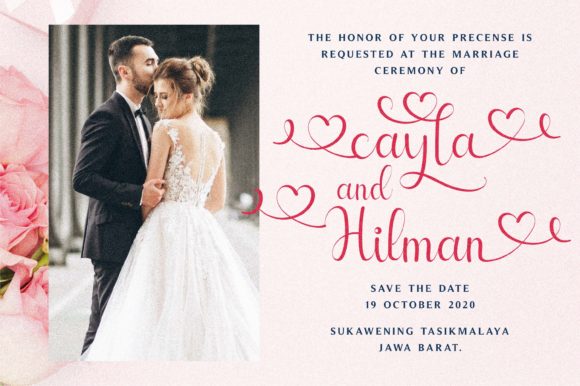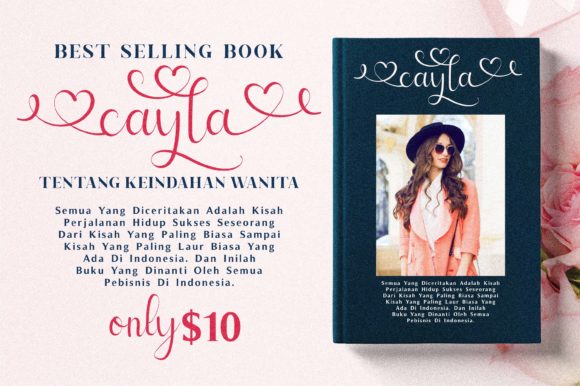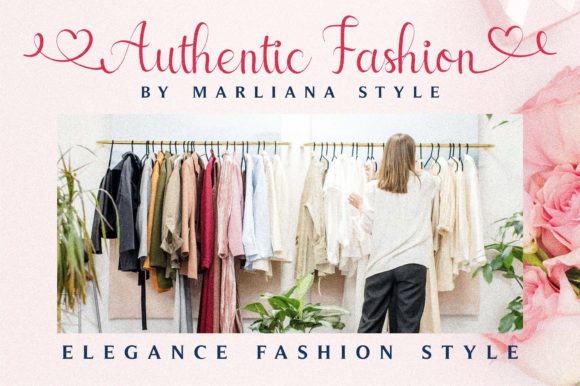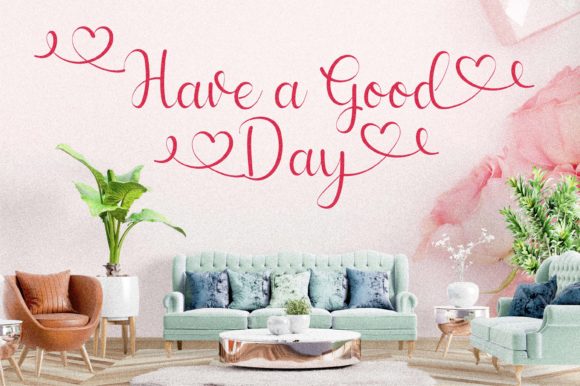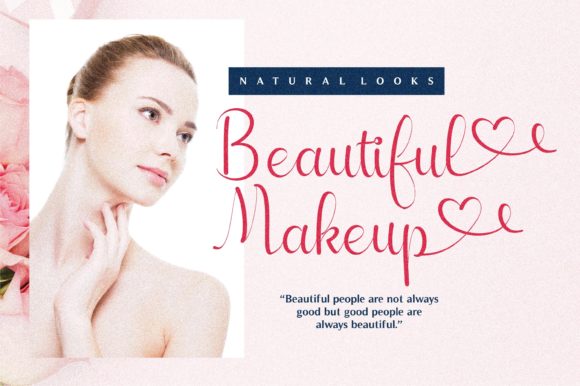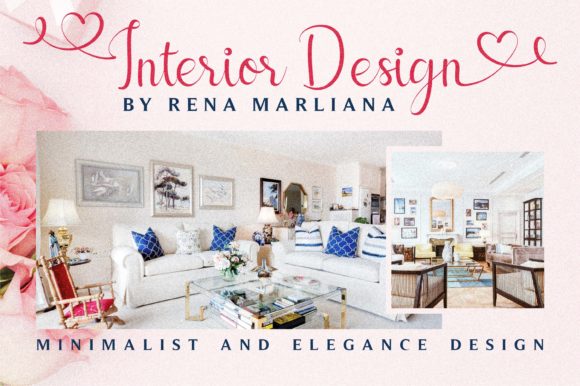
Cayla Font: Elevate Your Designs with a Delicate Handwritten Touch
Are you on the hunt for a font that can add a touch of elegance and whimsy to your designs? Look no further than the Cayla Font! This beautiful, handwritten font is perfect for designers, crafters, and DIY enthusiasts looking to create stunning visual content. In this article, we’ll dive into the features and benefits of the Cayla Font, and explore how it can help take your creative projects to the next level.
A Delicate and Lovely Handwritten Font
The Cayla Font is a delicate and lovely handwritten font that exudes a sense of sophistication and charm. Its intricate lettering and flowing script make it perfect for a variety of design applications, from Instagram graphics to calligraphy scripts for DIY projects. Whether you’re looking to create eye-catching social media posts, beautiful wedding invitations, or personalized gifts, the Cayla Font is sure to impress.
So, what sets the Cayla Font apart from other fonts on the market? Here are just a few of its key features and benefits:
• PUA Encoded: The Cayla Font is PUA (Private Use Area) encoded, which means that you can access all of the glyphs and swashes with ease. This makes it simple to create beautiful, intricate designs without having to worry about complicated font editing.
• Handwritten Charm: The Cayla Font has a unique, handwritten charm that adds a touch of personality to any design. Its delicate lettering and flowing script make it perfect for creating visual content that feels personal and authentic.
• Versatile: The Cayla Font is incredibly versatile, making it perfect for a wide range of design applications. Whether you’re creating social media graphics, calligraphy scripts, or DIY projects, this font is sure to shine.
The Cayla Font is a dream come true for designers and crafters alike. Its unique blend of elegance and whimsy makes it perfect for a variety of creative projects, from:
• Instagram Graphics: Create eye-catching Instagram graphics that showcase your brand’s personality and style.
• Calligraphy Scripts: Use the Cayla Font to create beautiful calligraphy scripts for DIY projects, such as wedding invitations, gift tags, and more.
• DIY Projects: Add a touch of elegance to your DIY projects, such as handmade cards, gift boxes, and more.
Tips and Tricks for Using the Cayla Font
Here are a few tips and tricks for getting the most out of the Cayla Font:
• Experiment with Different Sizes: The Cayla Font looks great in a variety of sizes, from small and delicate to large and bold. Experiment with different sizes to find the one that works best for your design.
• Play with Swashes and Glyphs: The Cayla Font comes with a range of swashes and glyphs that can add an extra touch of elegance to your designs. Experiment with different combinations to find the one that works best for your project.
• Pair with Other Fonts: The Cayla Font pairs beautifully with other fonts, such as sans-serif fonts and script fonts. Experiment with different pairings to find the one that works best for your design.
In conclusion, the Cayla Font is a beautiful, handwritten font that is perfect for designers, crafters, and DIY enthusiasts looking to add a touch of elegance and whimsy to their designs. Its delicate lettering, flowing script, and PUA encoding make it easy to use and versatile. Whether you’re creating Instagram graphics, calligraphy scripts, or DIY projects, the Cayla Font is sure to elevate your designs and help you stand out from the crowd.